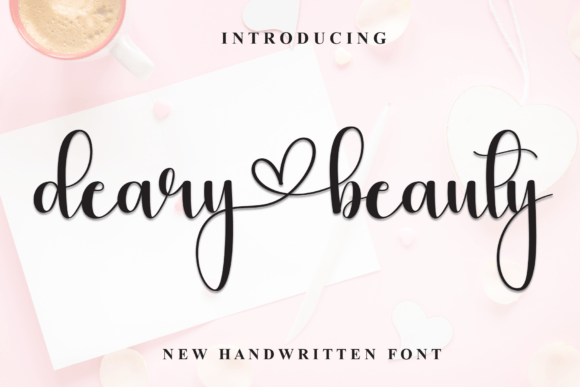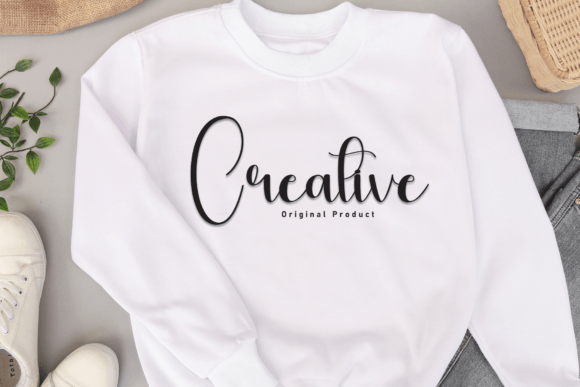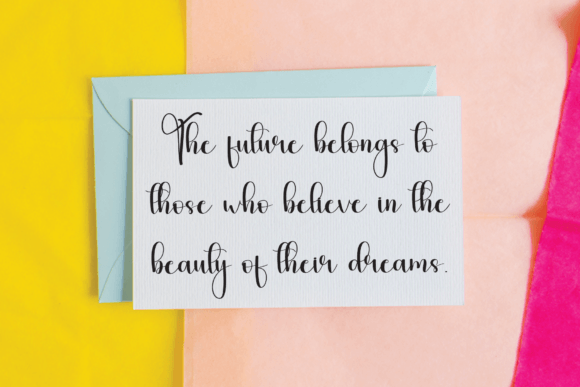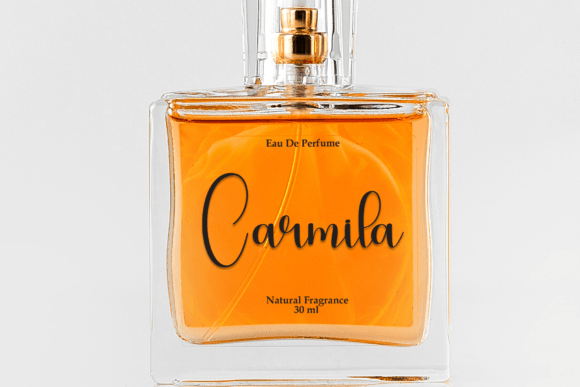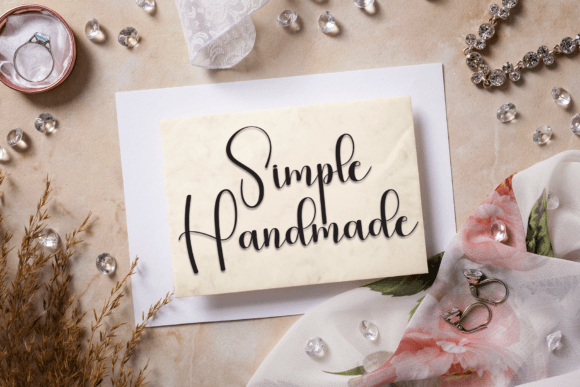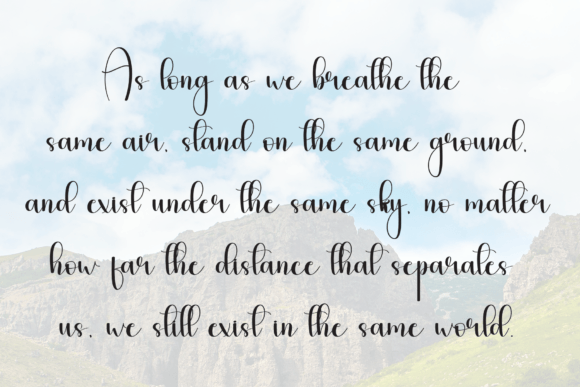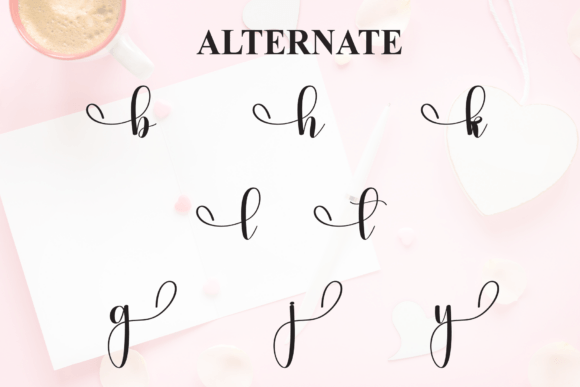
Introducing a Font that Steals Hearts: Deary Beauty Font
As you sit down to design a wedding invitation or a special card for a loved one, you know that the right font can make all the difference. The moment you’re searching for the perfect typeface to convey your emotions and add a personal touch, you stumble upon a font that makes you go ‘awww.’ That’s exactly what happens when you discover the Deary Beauty Font.
This charming, handwritten display font is more than just a pretty face – it’s a way to express your unique personality and make your designs stand out from the crowd. With its cute and playful style, Deary Beauty Font is the perfect choice for designers looking to add a dash of fun to their projects. Whether you’re a professional designer or a hobbyist, this font is sure to become a favorite in your arsenal.
Deary Beauty Font Key Features
- Font Family: Deary Beauty is a modern, elegant script font designed for beauty and wellness-related branding.
- Character Set: Includes 300+ glyphs, including uppercase and lowercase letters, numbers, punctuation, and special characters.
- Unique Characteristics: Features a beautiful, flowing script design with subtle connections between letters, perfect for creating a sense of luxury and sophistication.
Deary Beauty Font Review
Overall, I found the Deary Beauty Font to be a unique and visually appealing choice for beauty and fashion-related designs. Here’s a breakdown of what works well and what doesn’t.
- Curved lines and elegant strokes create a sense of sophistication and luxury.
- The font is highly customizable, allowing for easy adjustments to size, color, and style.
- Deary Beauty Font supports a wide range of languages, making it suitable for international projects.
- The font is well-suited for headings, titles, and other large text elements.
- The font may not be the best choice for body text, as it can be difficult to read in smaller sizes.
- The cursive-style letters may not be suitable for all audiences, particularly those with dyslexia or other reading difficulties.
Overall, Deary Beauty Font is a great choice for designers looking to add a touch of elegance and sophistication to their beauty and fashion projects. While it has some limitations, its unique style and customizability make it a worthwhile investment for the right projects.
Tips for Getting the Most Out of Deary Beauty Font
To get the most out of Deary Beauty Font, try the following:
- Pair it with elegant or minimalist designs for a sophisticated look.
- Use it for titles, headings, or body text to add a touch of elegance.
Deary Beauty Font is ideal for:
- Beauty and wellness branding.
- Alternatives to Deary Beauty Font
Great Vibes Font is a beautiful, elegant script font that is perfect for creating a romantic or vintage atmosphere in your designs. It is a great alternative to Deary Beauty Font for projects that require a touch of sophistication and whimsy. Great Vibes Font has a more refined and delicate look compared to Deary Beauty Font, making it ideal for wedding invitations, greeting cards, and other designs that need a soft, feminine touch.
Alice Script Font
Alice Script Font is a classic, elegant script font that is perfect for creating a sense of luxury and sophistication in your designs. It is a great alternative to Deary Beauty Font for projects that require a touch of elegance and refinement. Alice Script Font has a more formal and sophisticated look compared to Deary Beauty Font, making it ideal for high-end designs, business cards, and other projects that need a professional touch.